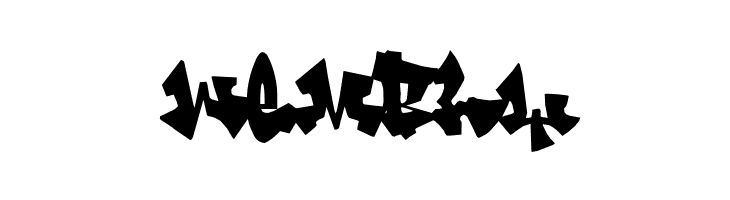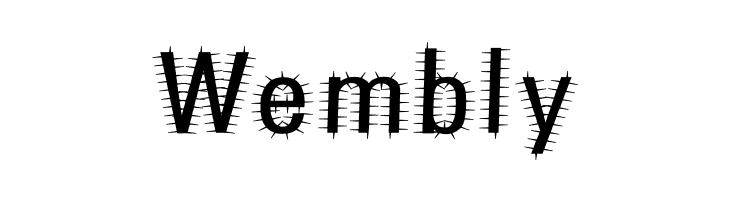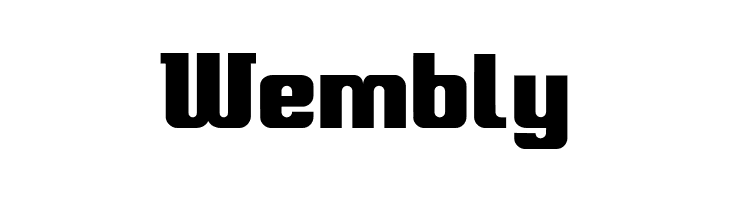
• Bronic Expanded
A bold, expanded font with thick strokes and rounded edges.
• Bronic Expanded Italic
A bold, italic, and expanded font with a modern and dynamic style.
• Bronic Italic
A bold, italic font with a dynamic and energetic style.
• Bronic Shadow
A bold, shadowed font with a three-dimensional effect, perfect for impactful headlines.
• Brother Bear
• Brzydal.
• Buddhism
An illustrative, Buddhism-themed decorative font with pictorial glyphs.
• Budmo Jigglish
• BullerBuPapercut
A playful, hand-crafted font with irregular, cut-out shapes.
• BullerBuPapercut-BoldOblique
A bold, oblique font with a papercut effect, offering a playful and handcrafted style.
• Bumrush
• Burgfest
A bold, blackletter-inspired font with dramatic, angular strokes.
• Burtinomatic
A classic blackletter font with intricate, angular letterforms and a medieval aesthetic.
• Burtinomatic-DemiBold
A bold, medieval-inspired font with sharp, angular edges and dramatic serifs.
• Busho Heavy
A bold, three-dimensional font with a shattered glass effect.
• BusyPeople
Illustrative display font featuring business people in office scenes.
• BuyMe
Whimsical cartoon font with commerce-themed illustrations.
• BW51
A bold, geometric font with a modern and structured design.
• CactusBlossom
A bold, spiky decorative font with a playful cactus-inspired design.
• Callimundial
A dynamic, calligraphic font with sharp, angular strokes and high contrast.
• Camilla
A modern vintage font with rounded edges and elongated vertical lines.
• CancellerescA
A classic blackletter font with ornate, angular strokes and a bold, structured appearance.